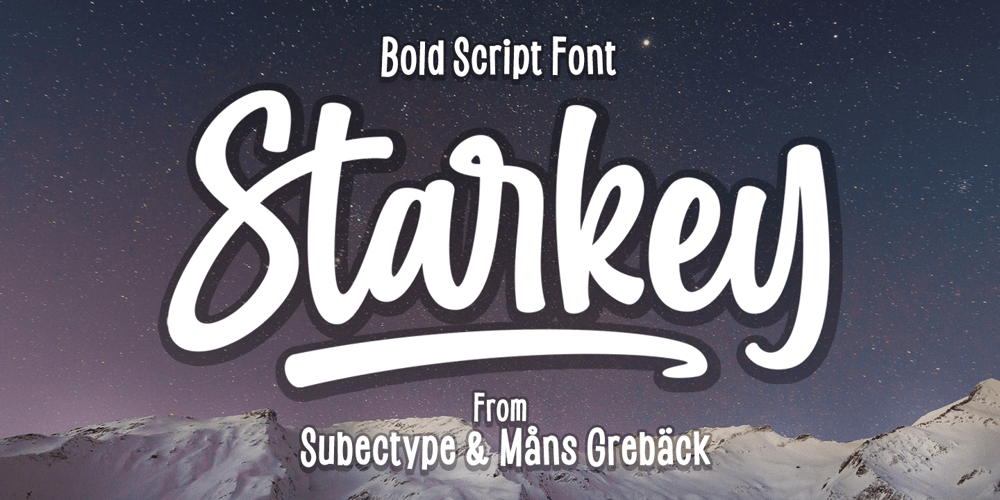
Starkey Font Family was designed by Måns Grebäck, Rangga Subekti and published by Mans Greback. Starkey contains 2 styles and family package options. Starkey is a bold, handwritten script typeface.It is modern, quirky and clean, with a natural brush style that can be used for all your projects and needs. Each glyph is carefully drawn, and all of them have their own uniqueness. When connecting with each other, they will provide dynamic and pleasing proximity and a beautiful flow. The high-quality logotype lettering works perfectly for branding and in any joyful context, such as product designs, labels, invitations and much more.Use characters { } < > _ to create swashes. Write multiple characters to get longer swashes. Example: Eter{{{nalThe font is full of ligatures, alternates and other OpenType functions. It has extensive language support, allowing you to write in all European Latin based scripts, as well as containing numbers and all characters and symbols you’ll ever need.